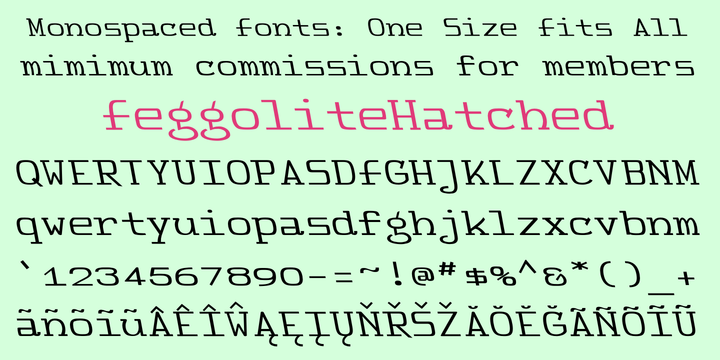
Feggolite Hatched
Designed by: Robert Schenk
Designed when: 1994
FeggoliteHatched
FeggoliteHatched is a monospaced font with a leftward slant. There is also a choppy, more upright version included with it.